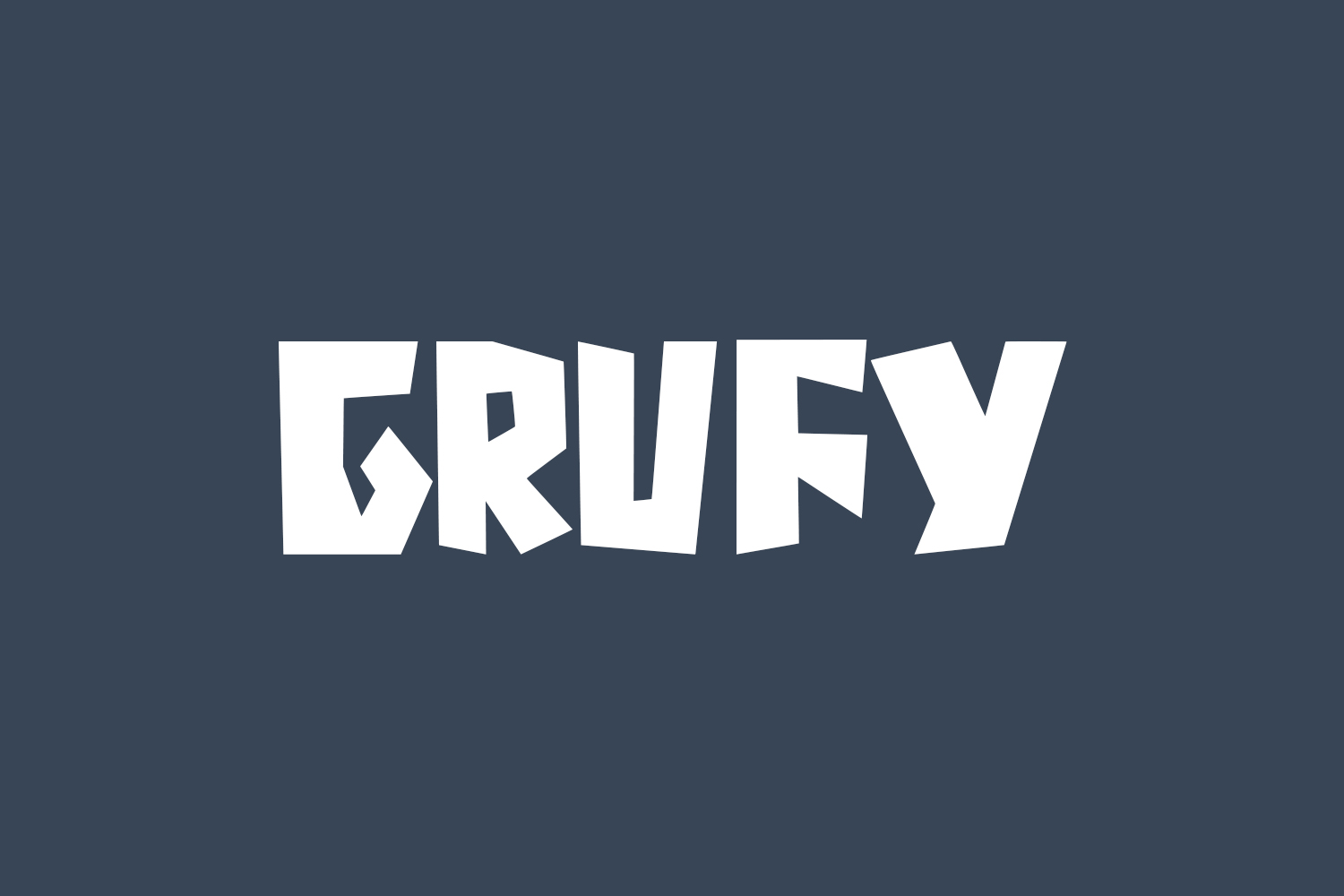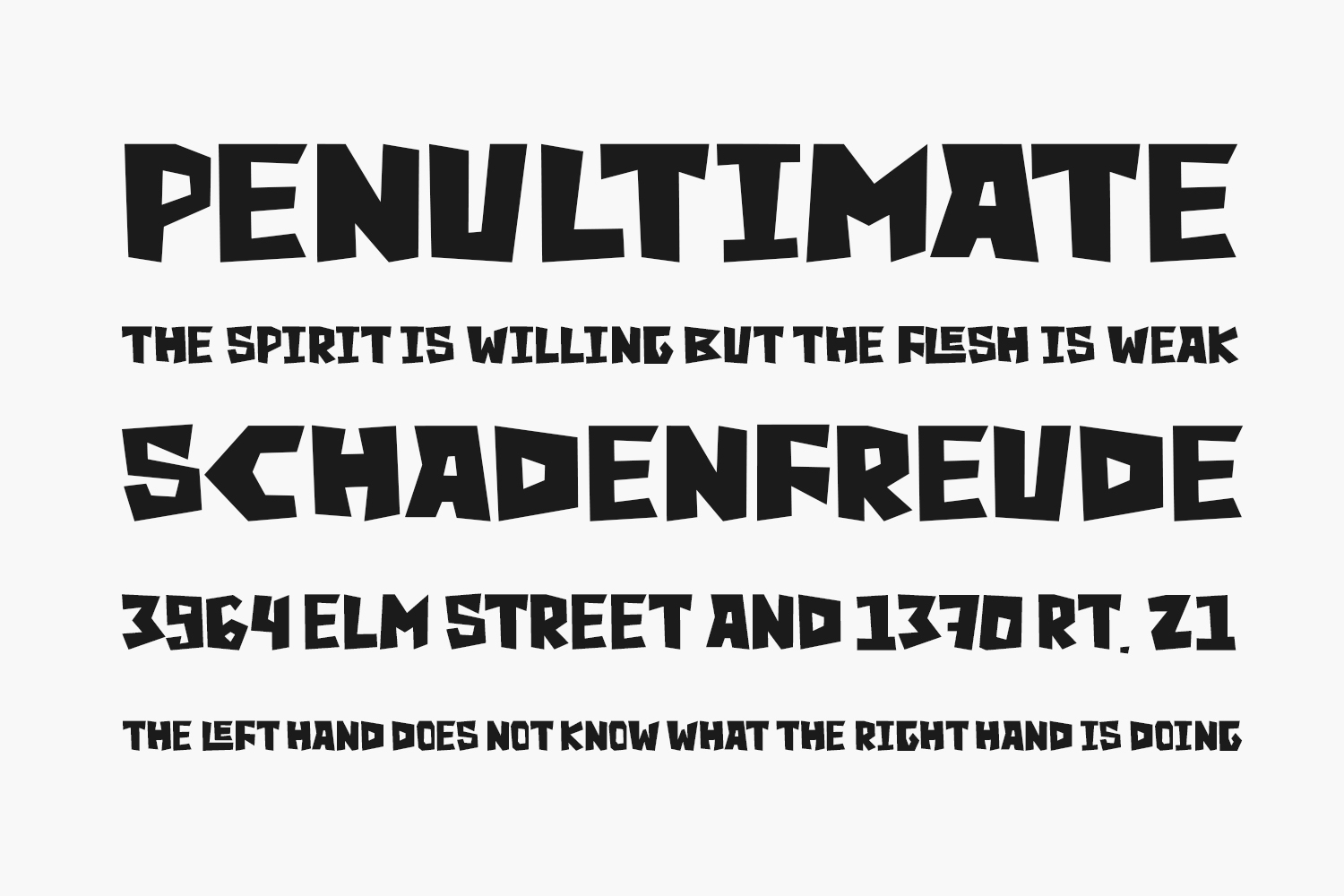
Grufy Free Font is an awesome bold and fun looking display font. It will put a modern twist on any design project with its urban charm. Use this font for your graffiti styled creations and explore its endless possibilities.